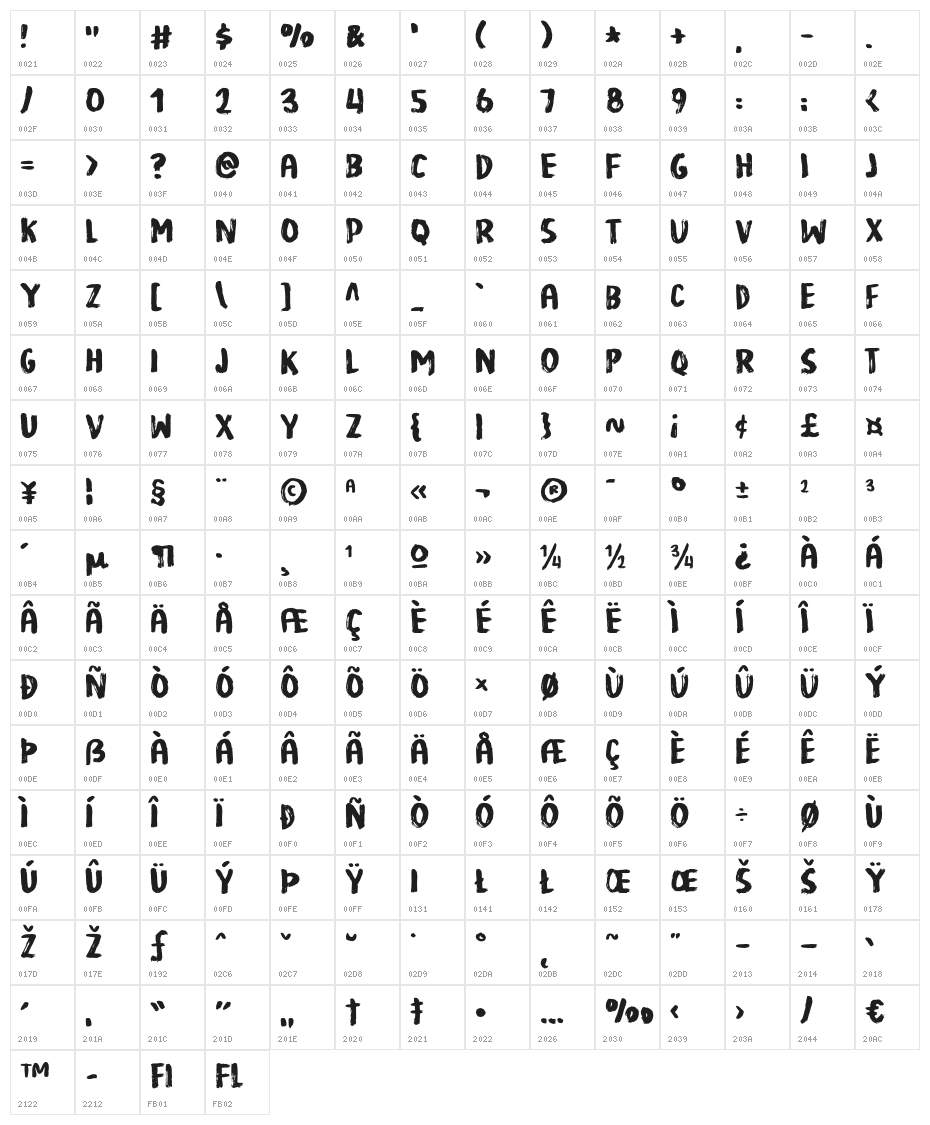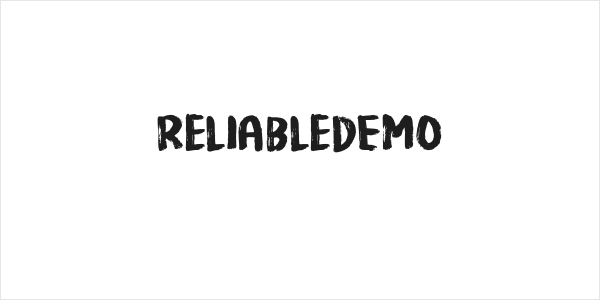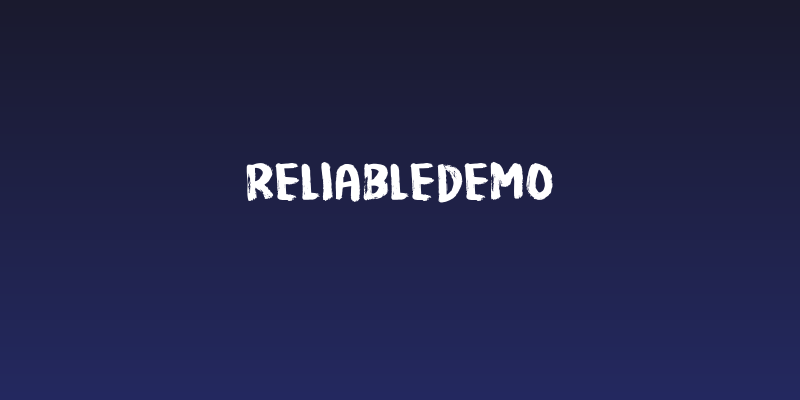
ReliableDEMO Font
ReliableDEMO Description
This font exhibits a bold, expressive style with a hand-painted appearance, characterized by its rough, textured strokes that give it a dynamic and energetic feel. The letters are slightly irregular, adding to the handcrafted aesthetic, while maintaining legibility. The uppercase and lowercase letters, along with numbers and special characters, all share this distinctive brush-like quality, making it suitable for creative and artistic projects. The font's unique style can add a personal touch to designs, standing out with its bold presence.
| Proposed Projects | Ideal for posters, album covers, artistic branding, and creative social media graphics. |